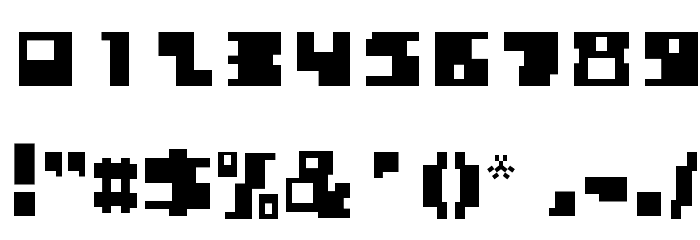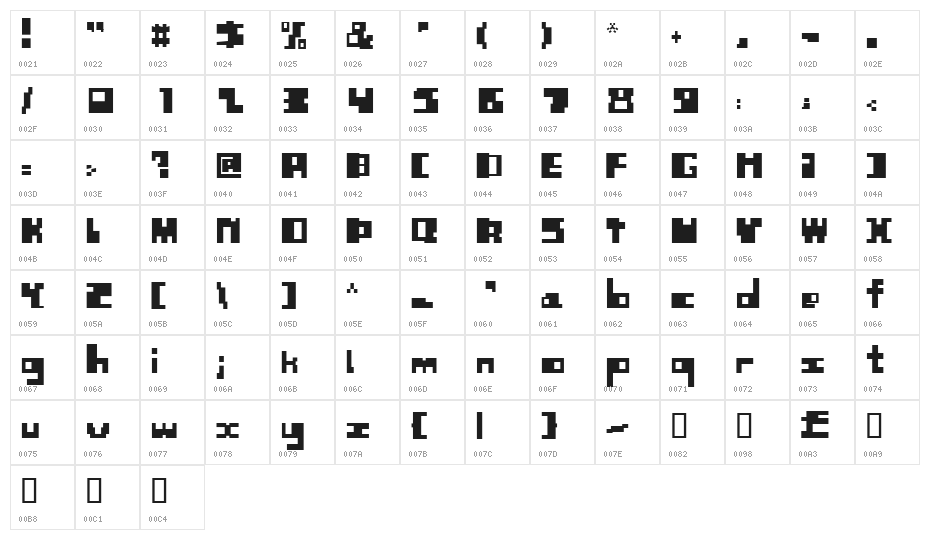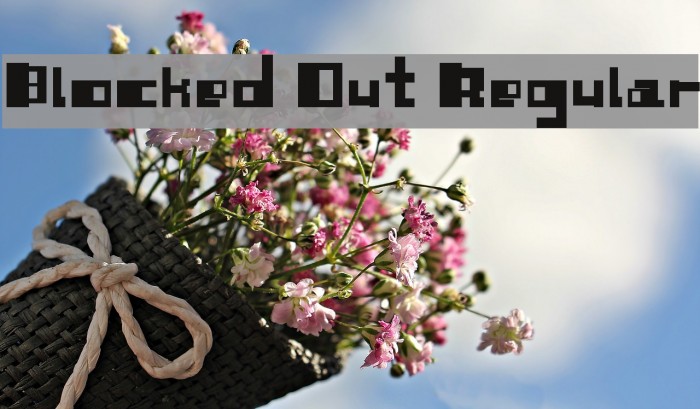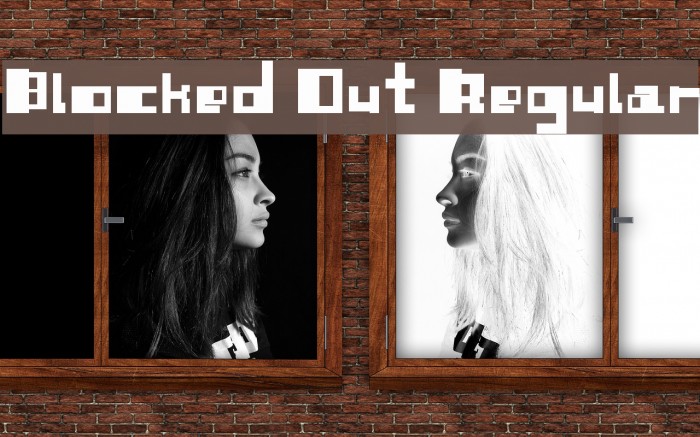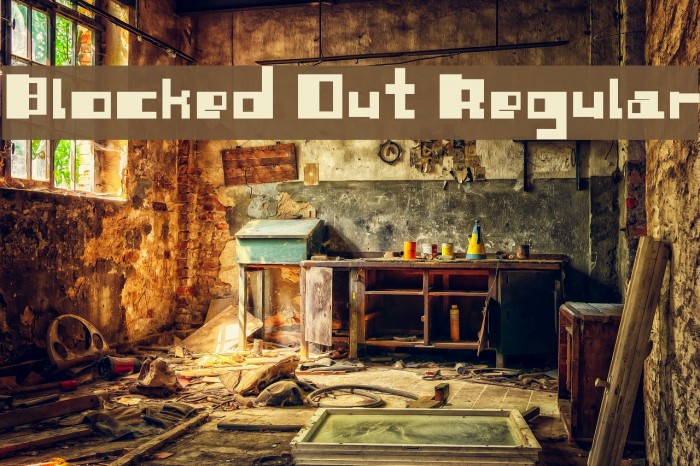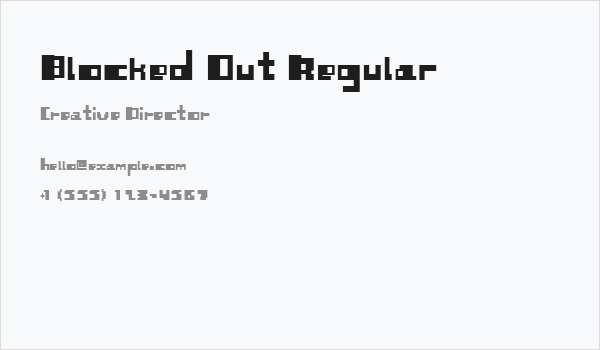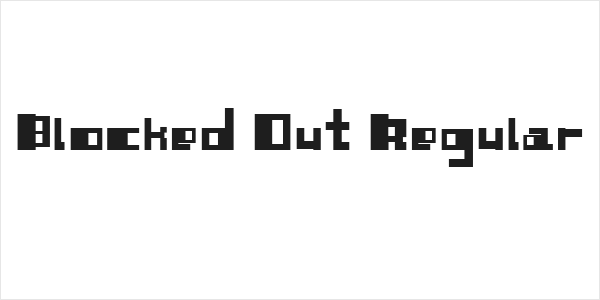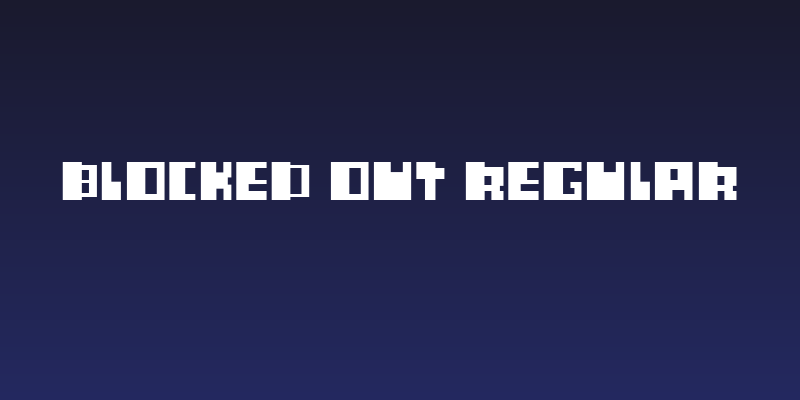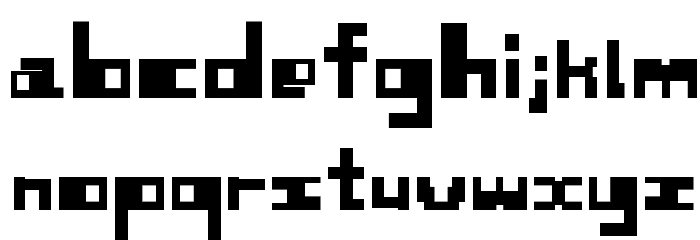
Blocked Out Regular Font
Blocked Out Regular Description
This font features a bold, blocky design with a distinctly geometric and pixelated appearance. The characters are uniformly thick, creating a strong visual impact. The uppercase and lowercase letters maintain a consistent style, with sharp angles and straight lines. The numerals and special characters follow the same aesthetic, ensuring a cohesive look across all glyphs. This font's design is reminiscent of early digital or arcade-style typography, making it ideal for projects that require a retro or tech-inspired feel.
| Overall Style | Retro, Tech-inspired |
| Proposed Projects | Ideal for video game graphics, retro-themed posters, digital art, and tech-related branding. |